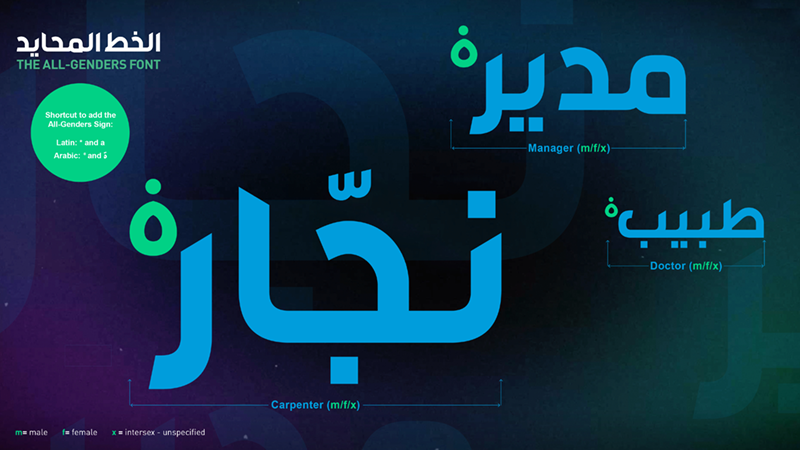
Preview and download All Genders Font. Created by Abdo Naji Alawdi Rassam in Basic Sans serif styles with 100% Free license.
Font name: | All Genders |
Author: | Abdo Naji Alawdi Rassam |
ALL-GENDERS FONT This Font (3 Styles) is free for personal and commercial use. And this is how it works: Download the All-Genders Font and enter the key combination (Shortcut) after a male ending. |